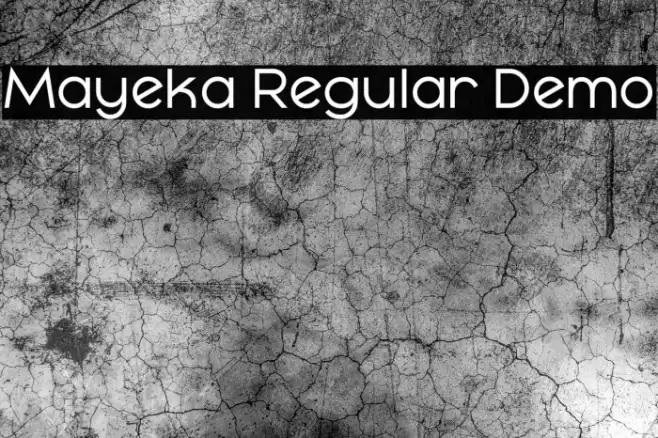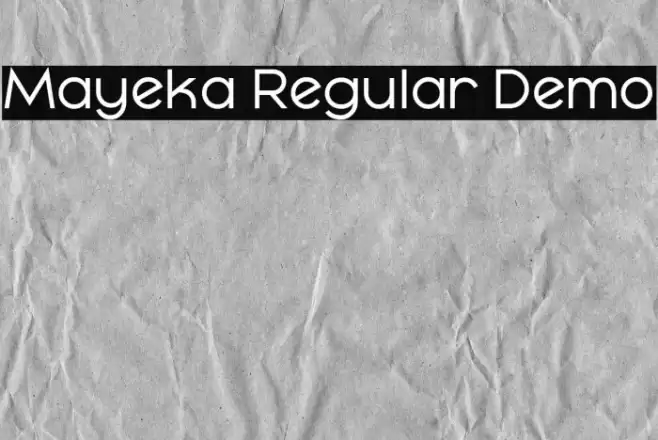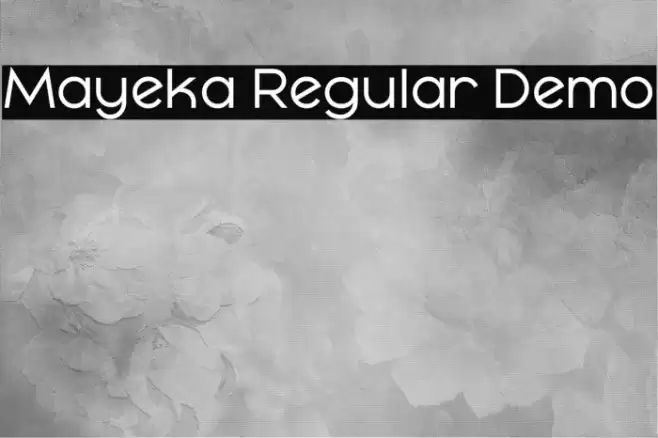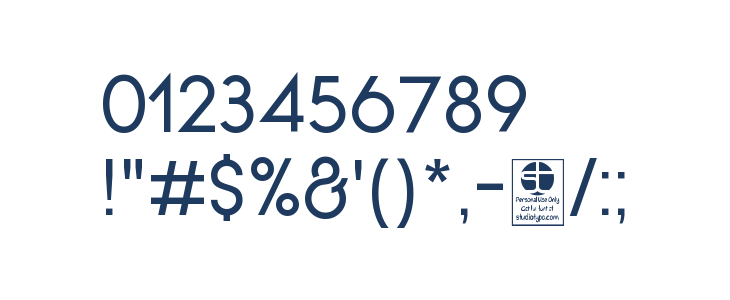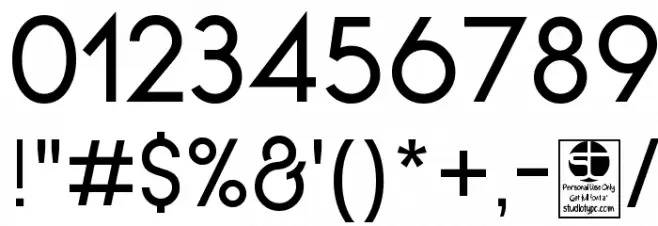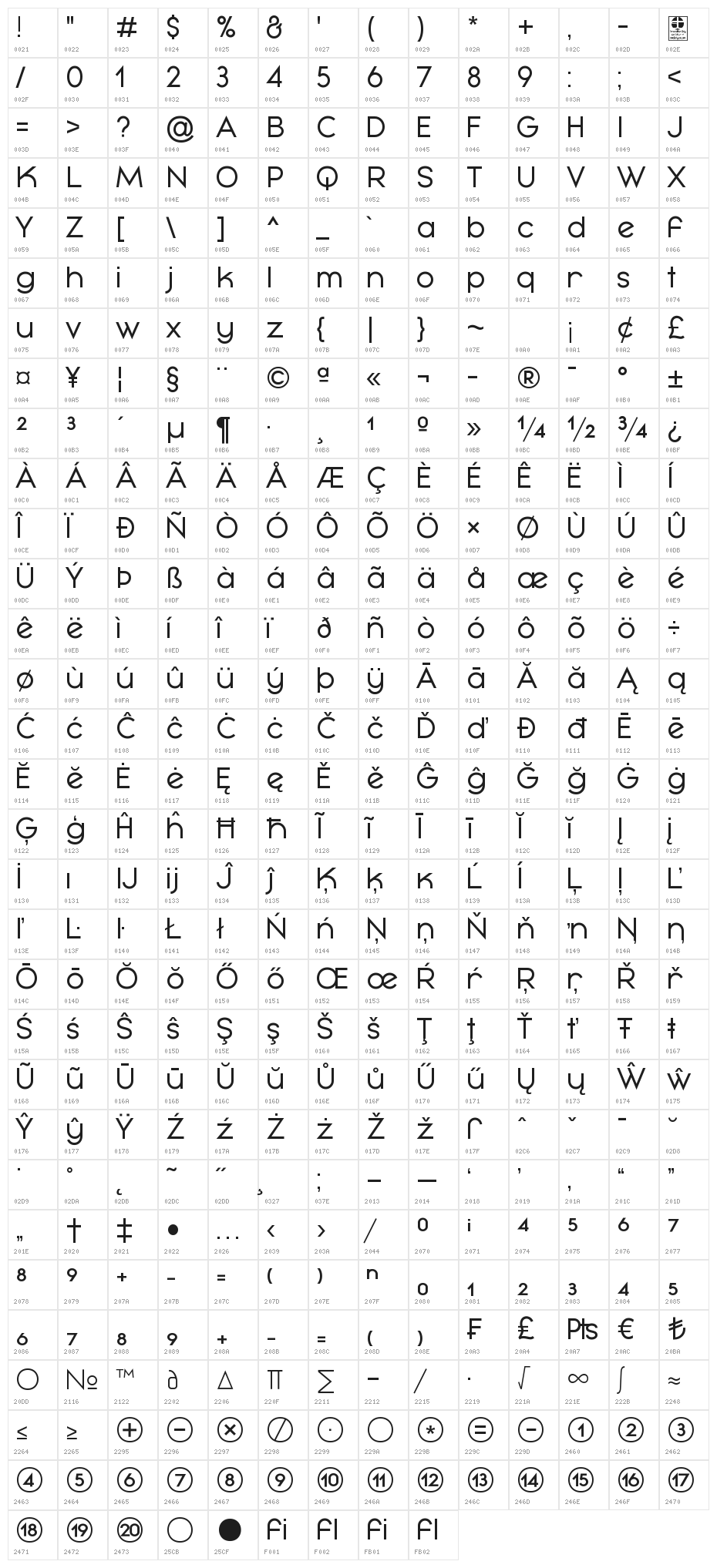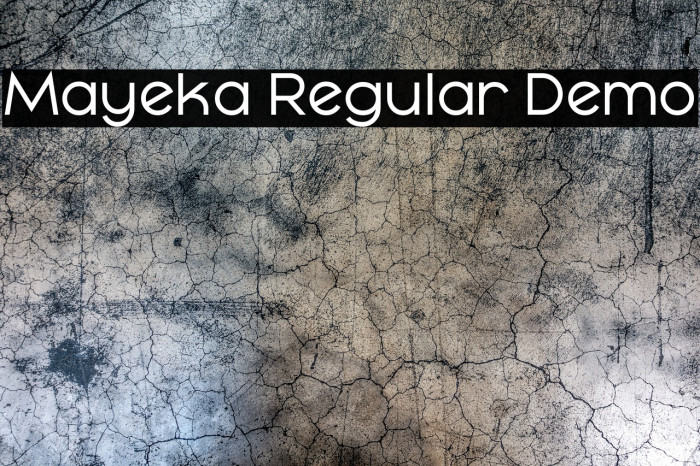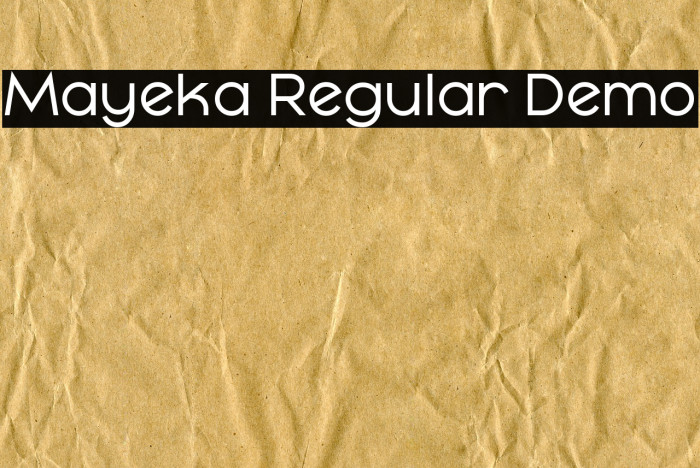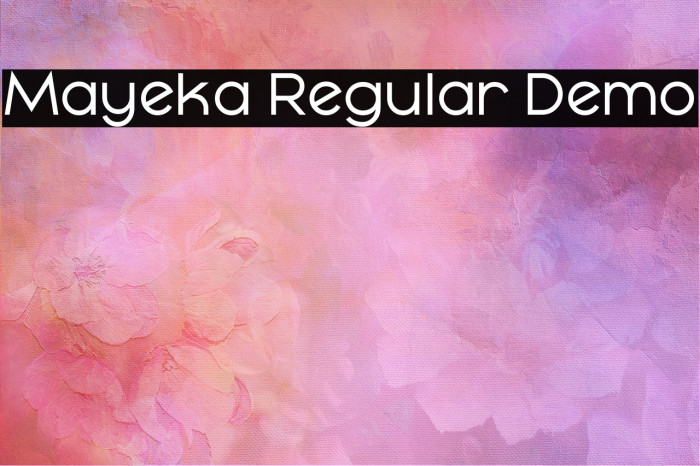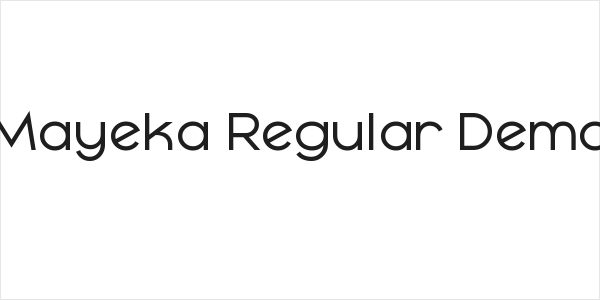
Mayeka Regular Demo Font
Mayeka Regular Demo Description
This font features a clean and modern sans-serif style with a geometric structure. The characters are well-balanced with a uniform stroke width, giving it a sleek and contemporary appearance. The uppercase and lowercase letters maintain a consistent height, contributing to its harmonious look. The numerals are clear and easy to read, while the special characters are designed with simplicity in mind. This font's minimalistic design makes it versatile for various applications, ensuring readability and aesthetic appeal.
A modern, geometric sans-serif font with a clean and minimalistic design from Sans Serif fonts.
- Proposed Projects: Ideal for branding, web design, advertising, and editorial projects where a modern and clean aesthetic is desired.